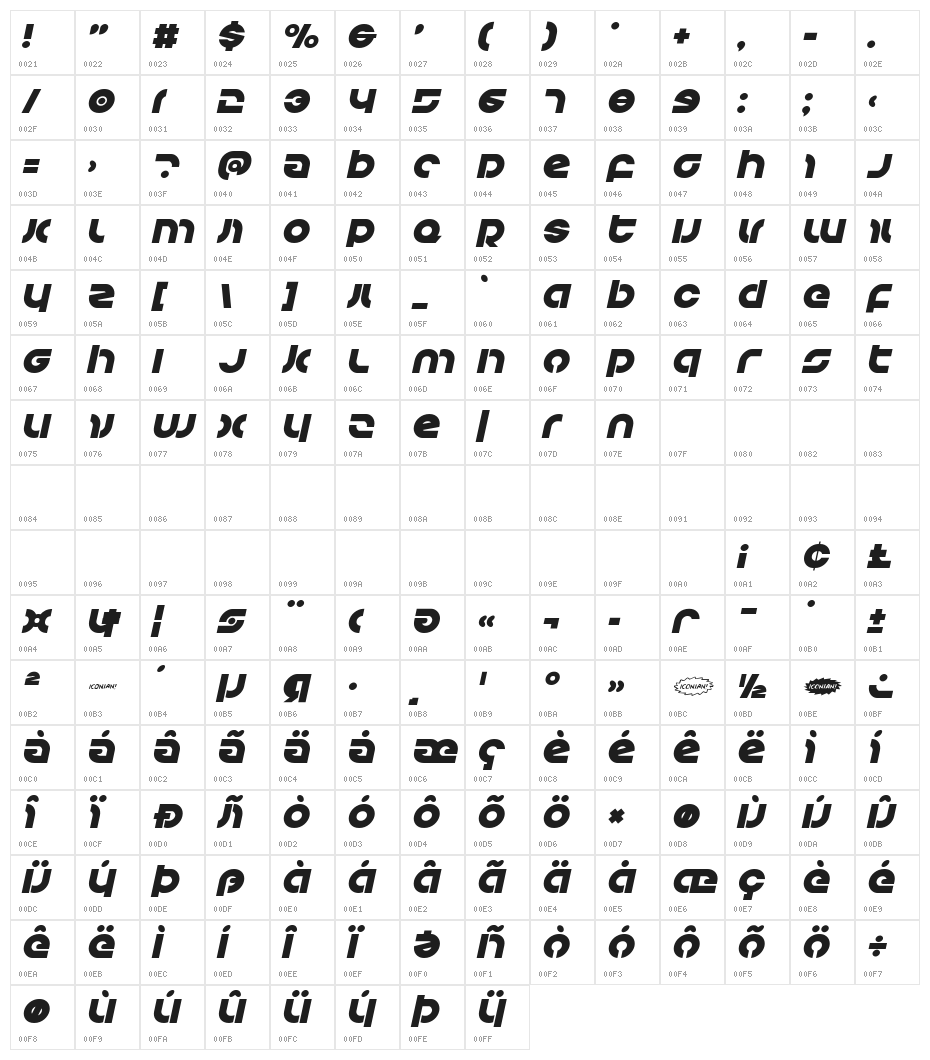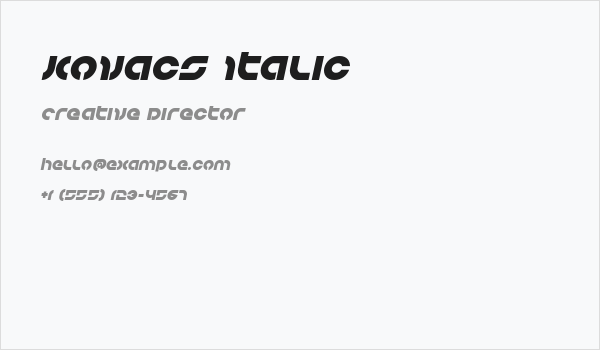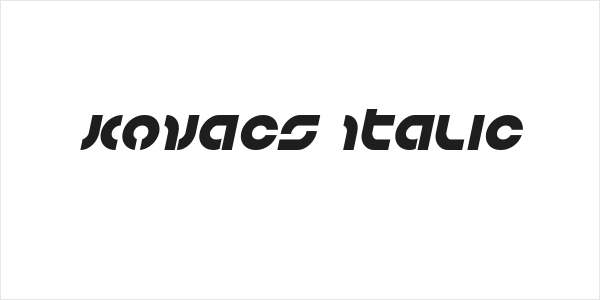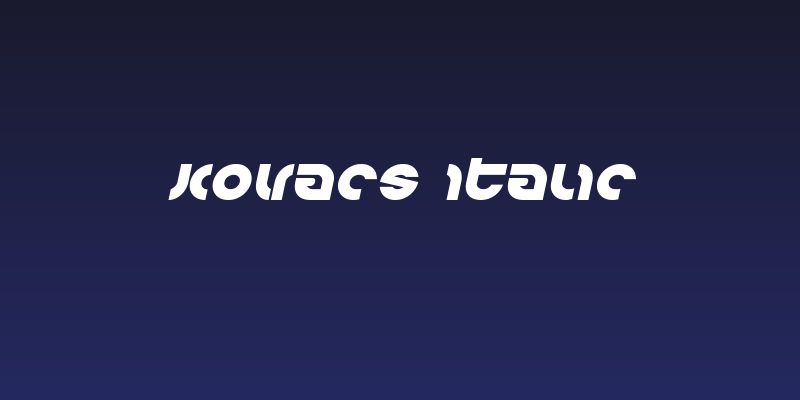
Kovacs Italic Font
Kovacs Italic Description
This font features a bold and dynamic design with a futuristic and geometric aesthetic. The characters are italicized, giving them a forward-leaning stance that suggests movement and speed. Each letter is crafted with sharp angles and smooth curves, creating a unique blend of modernity and style. The uppercase and lowercase letters maintain a consistent design language, with the lowercase letters mirroring the uppercase in form and structure. The numbers and special characters are equally bold and stylized, ensuring a cohesive look across all glyphs. This font's distinctive appearance makes it ideal for projects that require a strong visual impact.
| Proposed Projects | Ideal for branding, posters, sci-fi themed designs, and modern digital interfaces. |